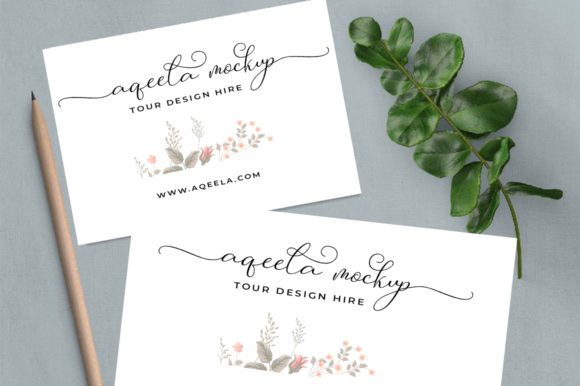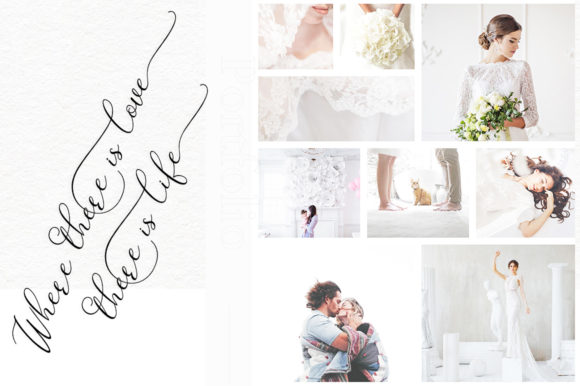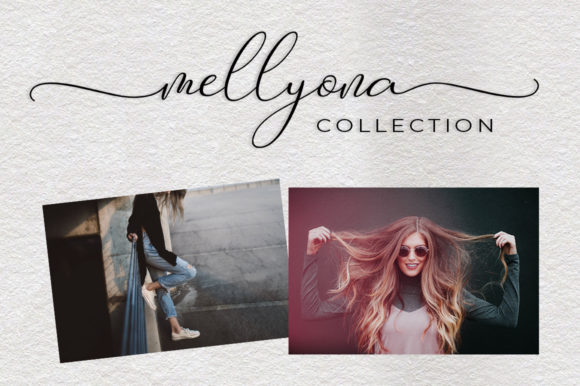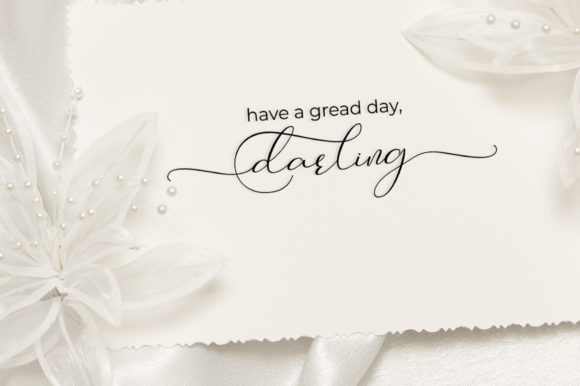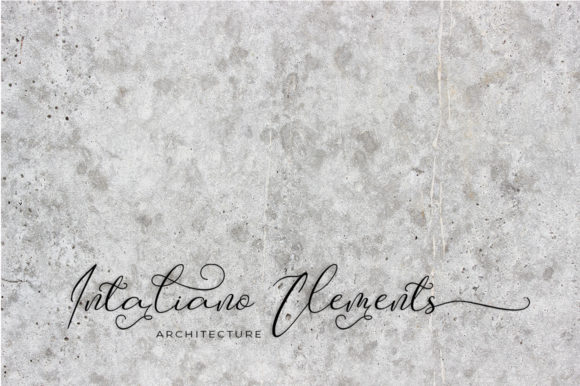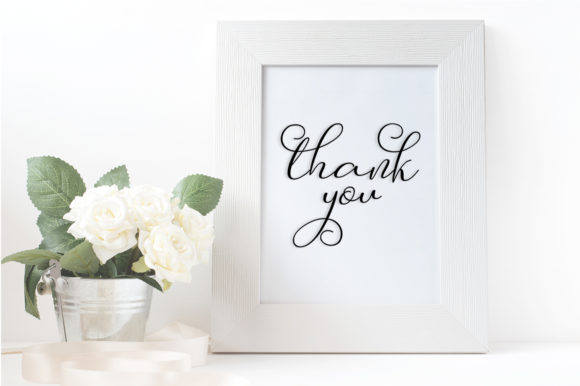
Anattasya Font
About Anattasya Font
You know your initial name tag won’t look good if you use a sans serif, so we bring you here to see something fresh, beautiful and meaningful; Anattasya. The Anattasya has a distinctive touch and is perfect for adding an elegant touch to your designs.